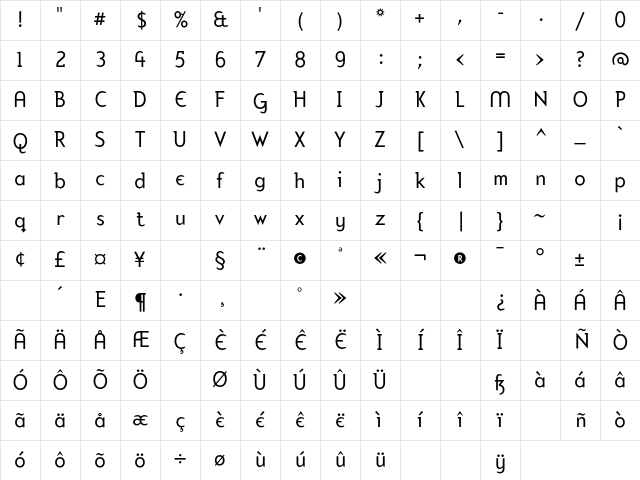
Mercury Alternative Free Font
Mercury Alternative
Style: Alternative
Design Context for Mercury
Mercury is a composed and adaptable typeface that performs quietly and consistently across a wide range of design contexts.